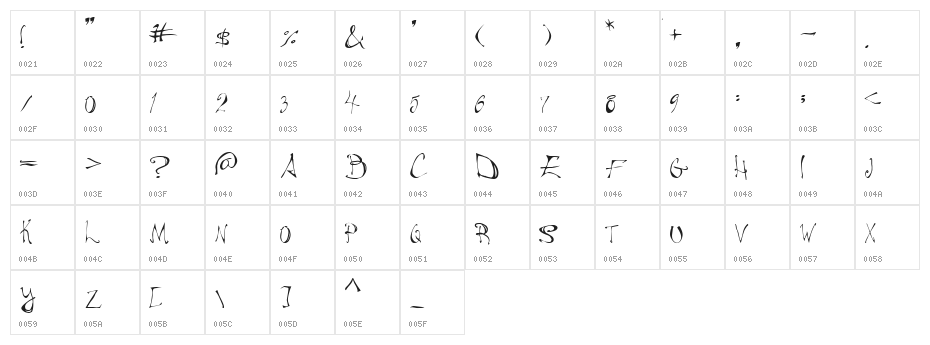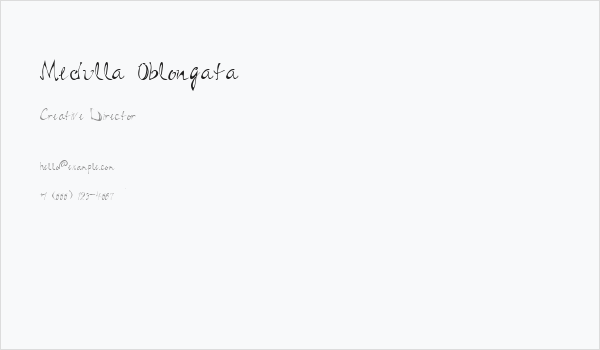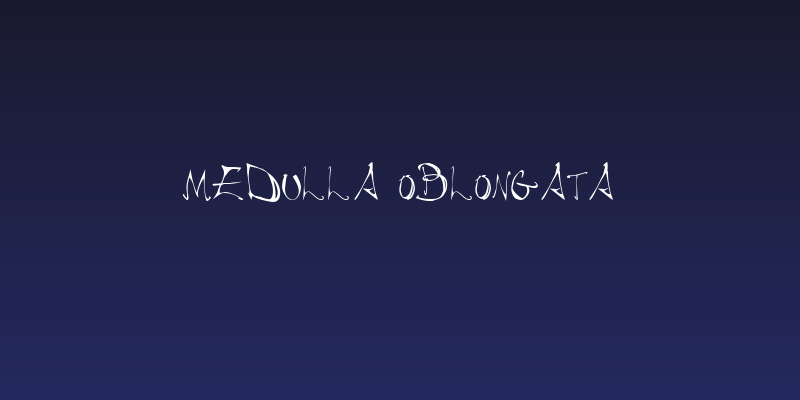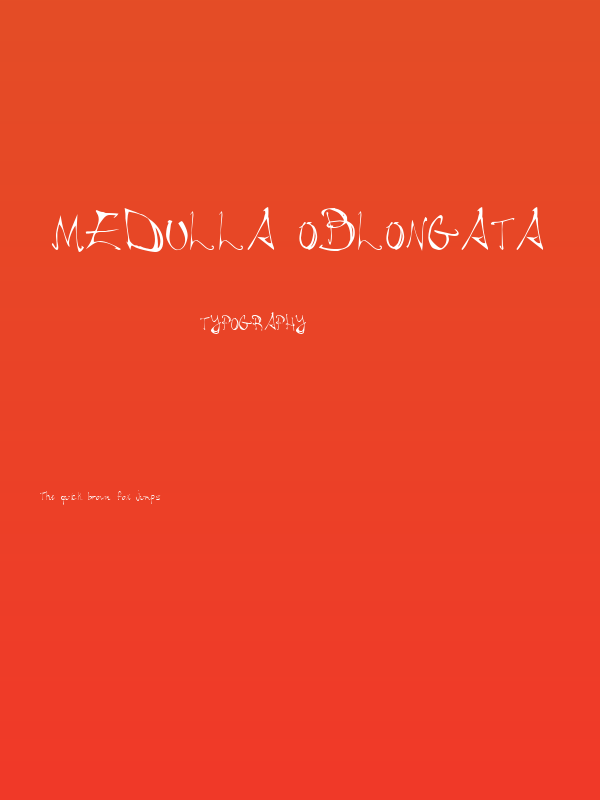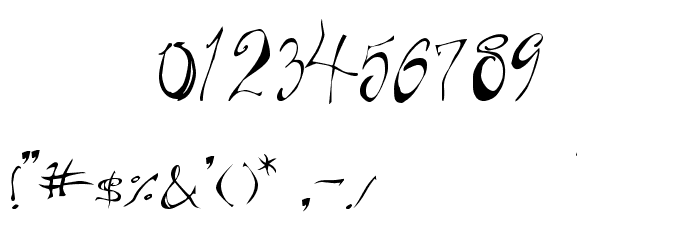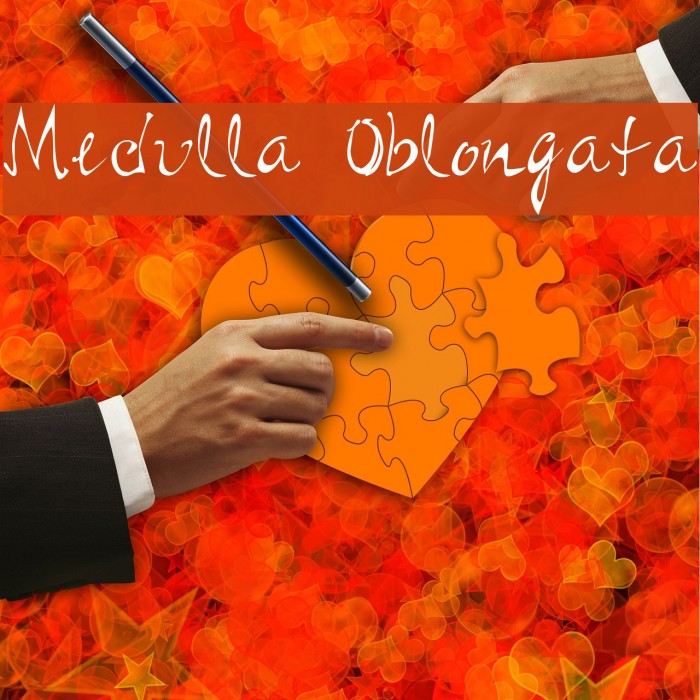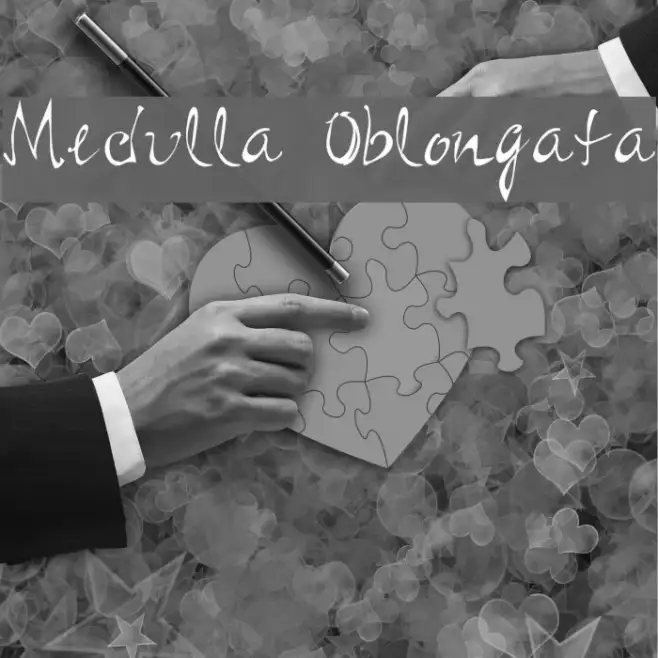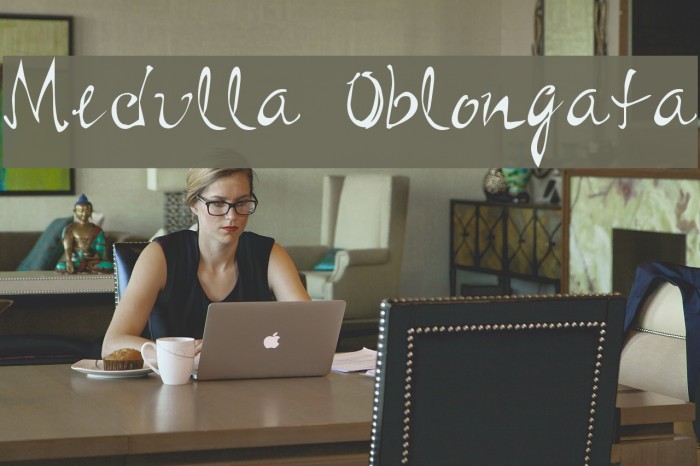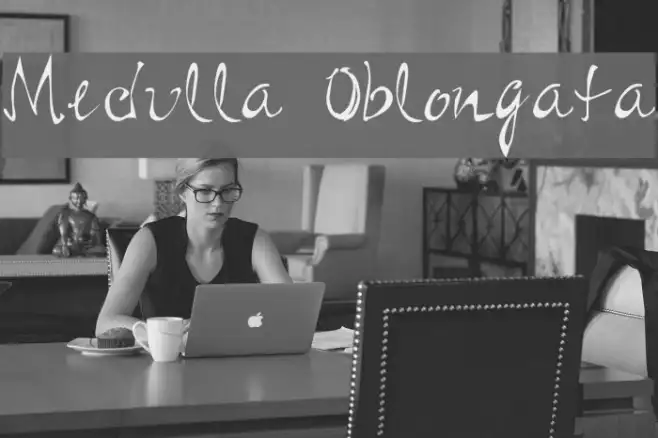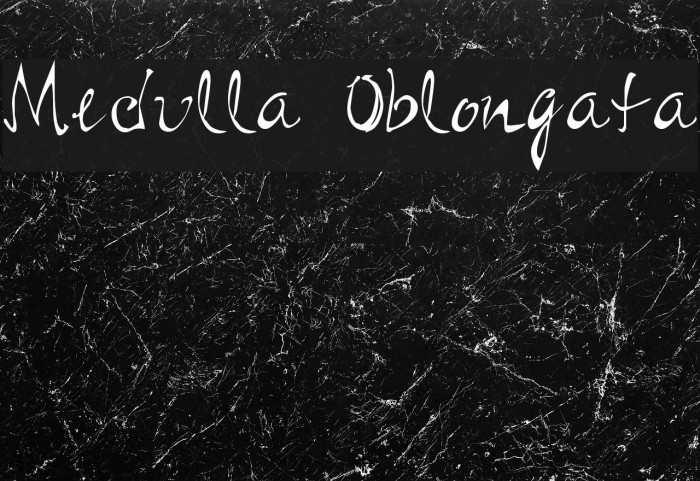
Medulla Oblongata Font
Medulla Oblongata Description
This font features a unique and artistic style with an organic, flowing appearance. The letters are characterized by their irregular, hand-drawn look, with varying stroke widths that add a dynamic and lively feel. The uppercase letters exhibit a whimsical flair, while the lowercase letters maintain a consistent yet playful design. The numerals and special characters follow the same artistic theme, ensuring a cohesive look across all elements. This font's distinct personality makes it stand out, offering a creative and unconventional aesthetic.
| Use Case | Logos, Headlines, Artistic projects |
| Proposed Projects | Ideal for creative projects such as invitations, posters, and branding that require a unique and artistic touch. |